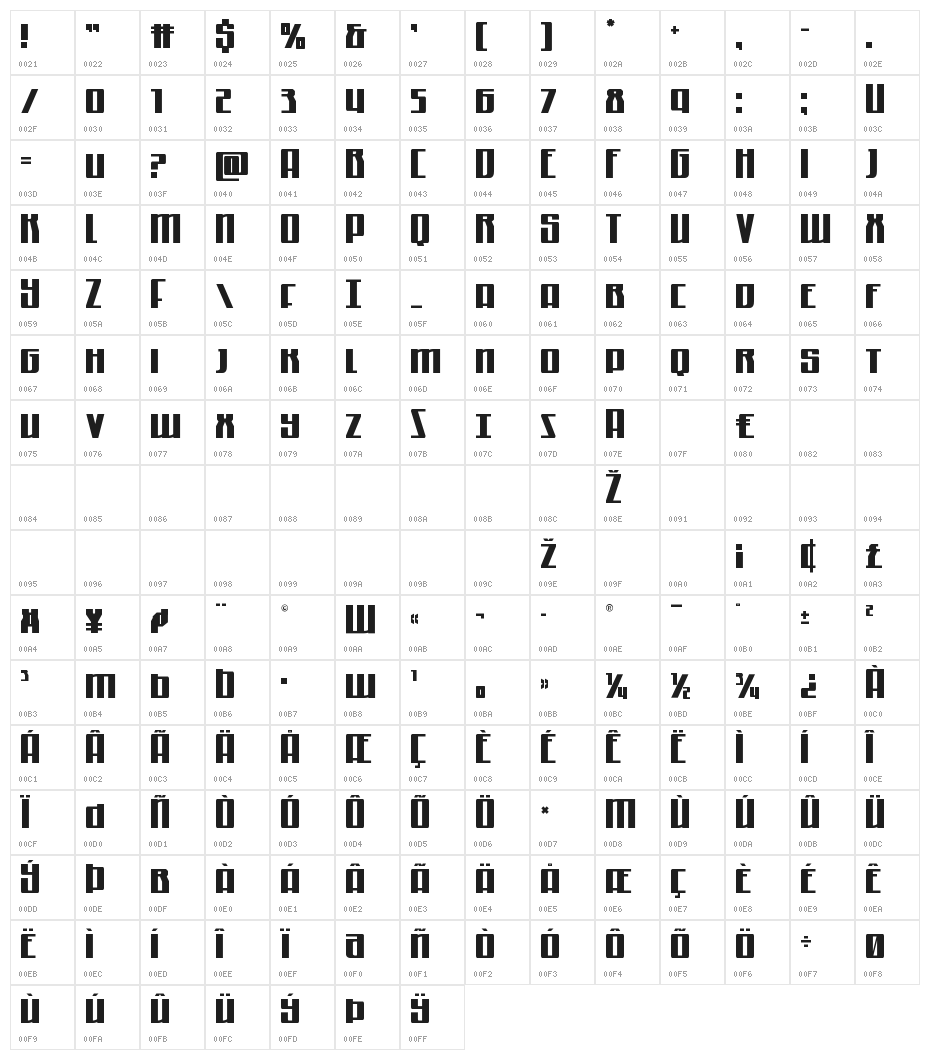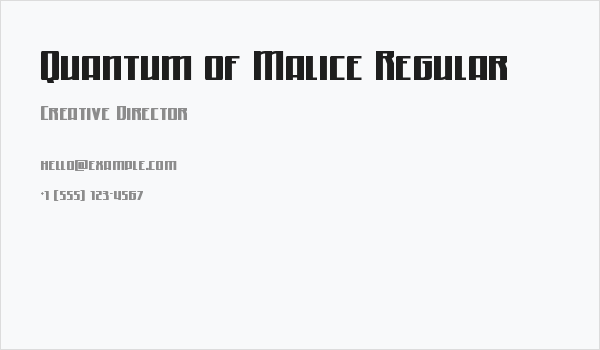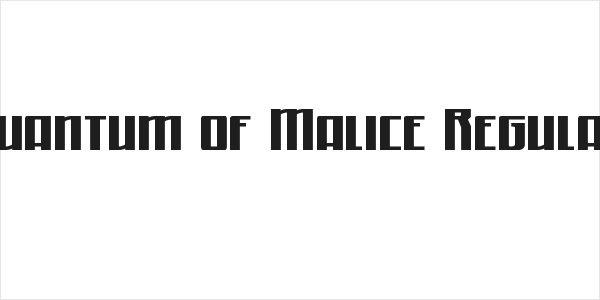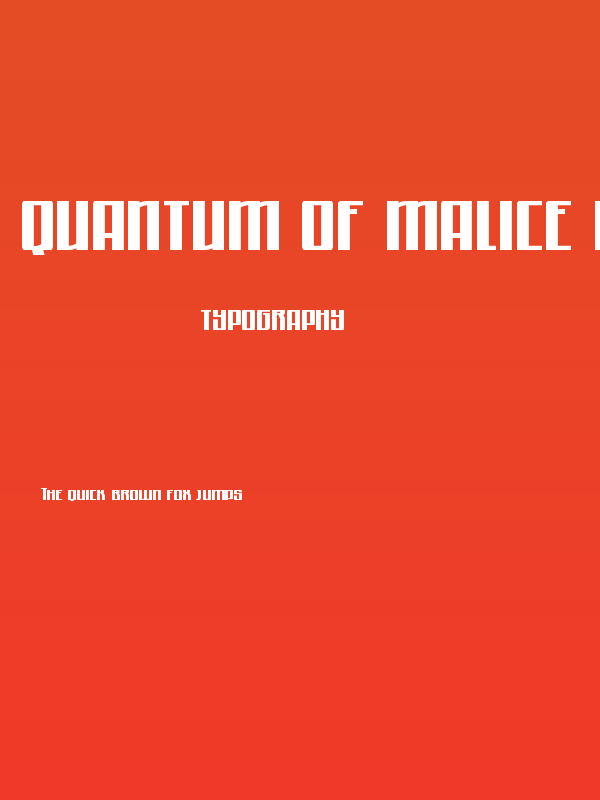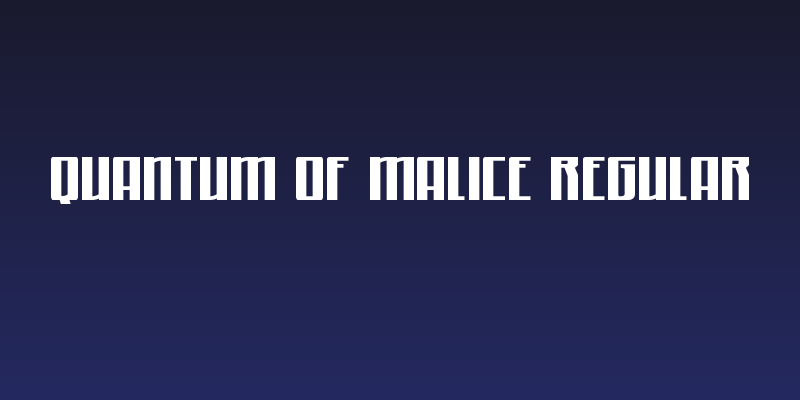
Quantum of Malice Regular Font
Quantum of Malice Regular Description
This font exhibits a bold and striking appearance with a modern, geometric style. The characters are designed with sharp angles and a strong presence, making it ideal for attention-grabbing headlines. The uppercase letters are particularly prominent, with a uniform height and a consistent width that adds to the font's boldness. The numerals and special characters maintain the same robust design, ensuring a cohesive look across all text elements. The font's distinct style is both contemporary and assertive, suitable for projects that require a powerful visual impact.
| Proposed Projects | Ideal for branding, posters, and headlines that require a strong visual impact. |